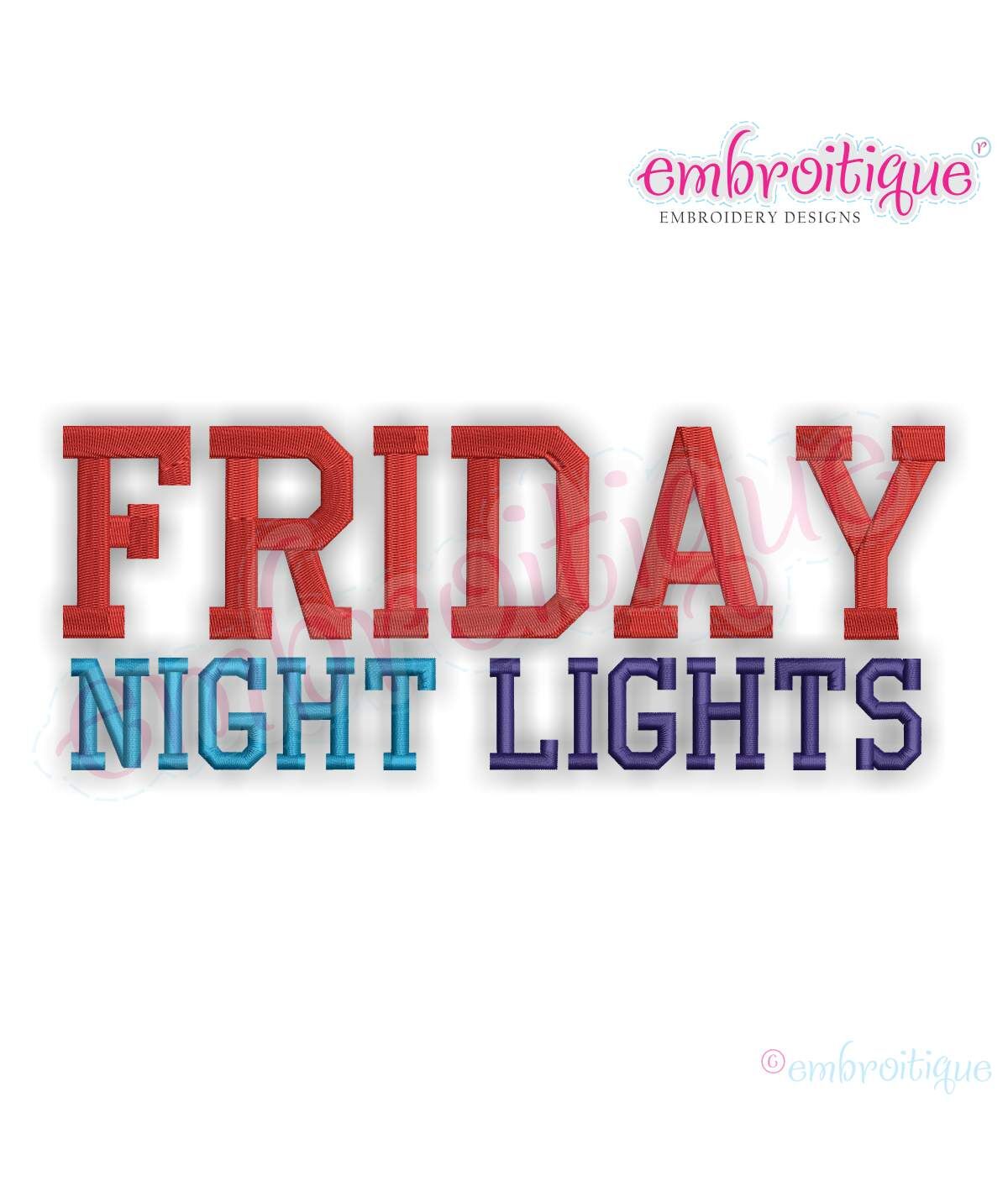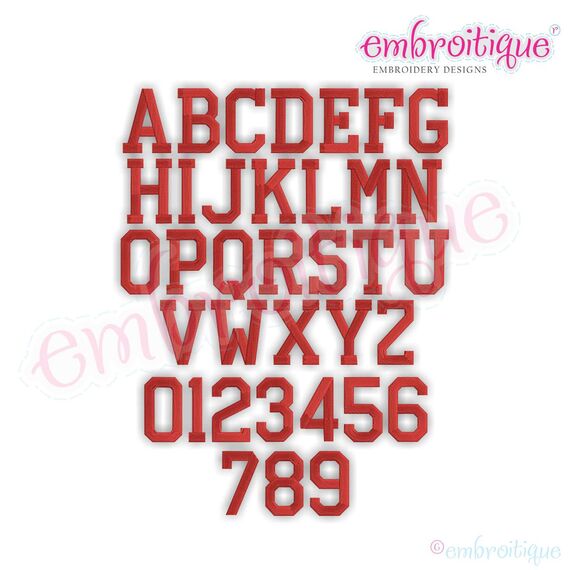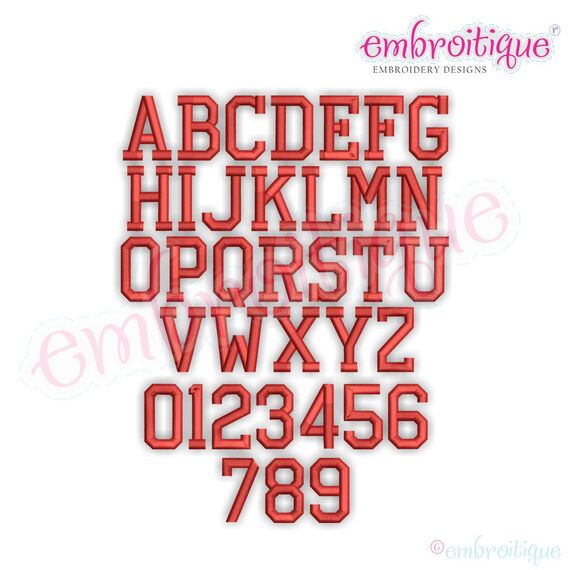
Friday Night Lights Sport Football Varsity Block Monogram Font - Instant Download -Digital Machine Embroidery Design
Such a great font for all types of sports!
Includes:
0-9
Aa-Zz